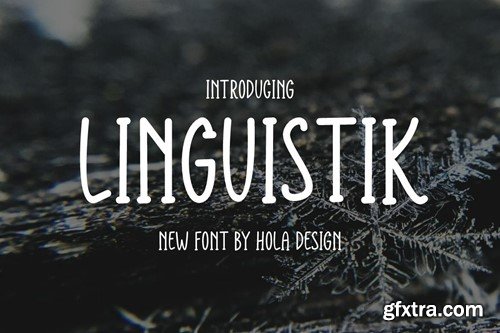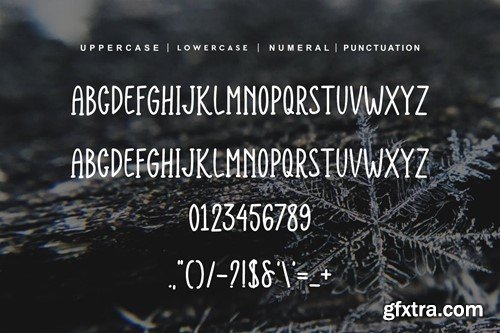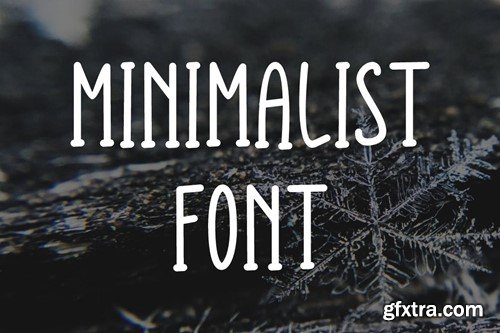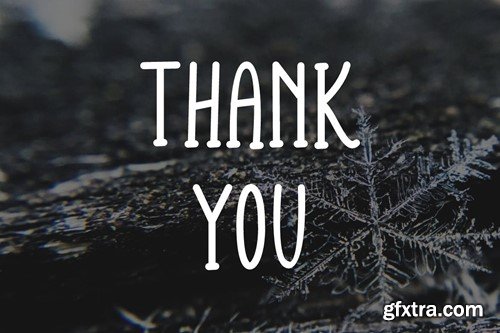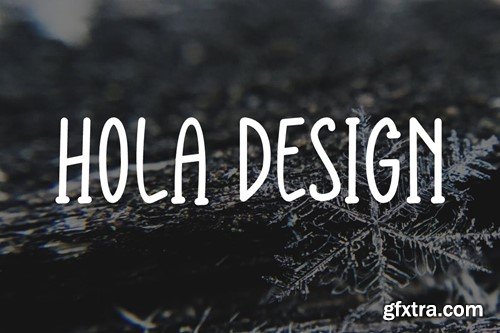
Linguistik Font
Linguistik Font Font is unique . Ready to use for your design like labeling, movie sceen, poster, movie title, gigs, album covers, logos, and much more. Included